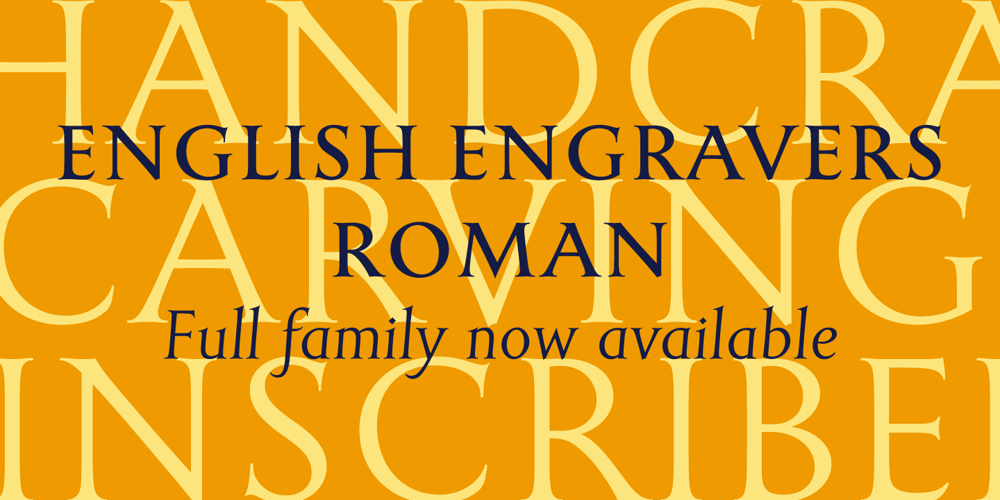
English Engravers Roman Font Family was designed by Robbie Smith and published by Smith Hands. English Engravers Roman contains 6 styles and family package options. English Engravers Roman is inspired by the beauty and eccentric detailing of British stone carved lettering. After observing many beautiful inscriptions around London and southern England, Robbie Smith decided to create a font family in homage to this rich heritage. English Engravers Roman features a set of beautifully balanced uppercase Roman, and a characterful lowercase alphabet with some endearing quirks. Included in the each font are two forms of lowercase ‘q’, one very similar to an uppercase ‘Q’ with a tail, and a traditional ‘q’. Each font in the family features a comprehensive character set with many ligatures, added to enhance letter spacing. The fonts all feature an additional set of old style numerals. Many extra characters and ligatures can be accessed via the ‘insert glyph’ functions in graphic design software.